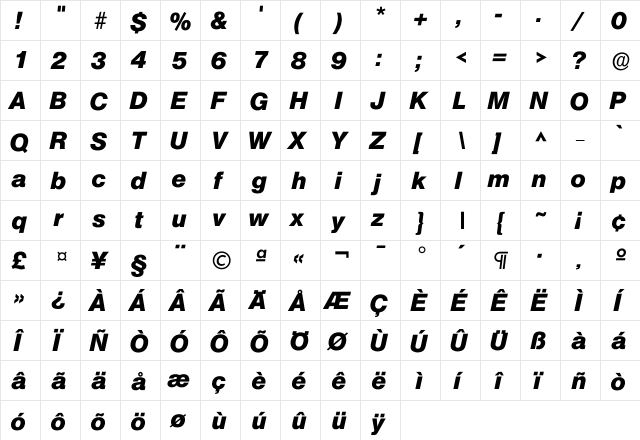
Iolympia ExtraBold
Design Context for Iolympia Typeface
Iolympia is a composed and adaptable typeface that performs quietly and consistently across a wide range of design contexts. The heavy weight commands attention and anchors typographic hierarchies.
Pro Tip: Pair Iolympia with a font of contrasting weight or personality to build a more expressive typographic hierarchy.